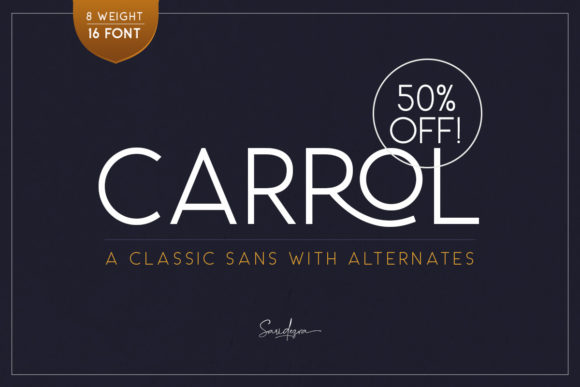
Introducing the Carrol Family Font: A Timeless and Versatile Sans Serif
The Carrol Family Font is a classic and modern sans serif font family that has been designed to provide users with a wide range of creative possibilities. With 16 styles to choose from, this font family offers the perfect solution for designers, artists, and writers looking to add a touch of elegance and sophistication to their projects.
A Brief Overview of the Carrol Family Font
The Carrol Family Font is a versatile and highly adaptable font family that can be used in a variety of contexts. Its clean and minimalist design makes it perfect for use in logos, quotes, headings, posters, and much more. Whether you’re working on a branding project, creating a website, or designing a marketing campaign, this font family is sure to impress.
Key Features of the Carrol Family Font
- 16 Styles to Choose From: The Carrol Family Font includes 16 different styles, each with its own unique characteristics and design elements. This allows users to create multiple unique designs, every time they use it.
- Classic and Modern Design: The Carrol Family Font combines classic and modern design elements to create a truly timeless and versatile font family.
- Sans Serif Design: The font features a clean and minimalist sans serif design, making it perfect for use in a variety of contexts.
- Highly Adaptable: The Carrol Family Font can be used in a wide range of projects, from logos and branding to headings, posters, and more.
The Benefits of Using the Carrol Family Font
There are many benefits to using the Carrol Family Font in your projects. Some of the key advantages include:
- Consistency: The Carrol Family Font provides a consistent look and feel across all of your projects, helping to establish a strong brand identity.
- Versatility: With 16 styles to choose from, the Carrol Family Font offers a high degree of versatility, allowing you to create multiple unique designs.
- Elegance: The font’s clean and minimalist design makes it perfect for use in projects where a touch of elegance and sophistication is required.
- Readability: The Carrol Family Font is highly readable, even at small sizes, making it perfect for use in body text and other applications where readability is essential.
How to Use the Carrol Family Font
The Carrol Family Font is easy to use and can be incorporated into a wide range of projects. Here are a few examples of how you can use this font:
- Logos and Branding: Use the Carrol Family Font to create a professional and elegant logo that perfectly captures the essence of your brand.
- Headings and Posters: The font’s clean and minimalist design makes it perfect for use in headings and posters, where a bold and eye-catching look is required.
- Quotes and Inspirationals: The Carrol Family Font is also well-suited to use in quotes and inspirationals, where a touch of elegance and sophistication is required.
- Websites and Digital Applications: The font’s high degree of readability makes it perfect for use in websites and digital applications, where a clear and concise look is essential.
Tips and Tricks for Getting the Most Out of the Carrol Family Font
Here are a few tips and tricks for getting the most out of the Carrol Family Font:
- Experiment with Different Styles: With 16 styles to choose from, don’t be afraid to experiment and try out different combinations to find the perfect look for your project.
- Use the Font in Combination with Other Fonts: The Carrol Family Font can be used in combination with other fonts to create a unique and visually appealing look.
- Pay Attention to Kerning and Tracking: To get the most out of the Carrol Family Font, make sure to pay attention to kerning and tracking, adjusting these elements as needed to create a clear and concise look.
The Carrol Family Font is a timeless and versatile sans serif font family that offers a wide range of creative possibilities. With its classic and modern design, 16 styles to choose from, and high degree of adaptability, this font family is perfect for use in a variety of contexts. Whether you’re working on a branding project, creating a website, or designing a marketing campaign, the Carrol Family Font is sure to impress.